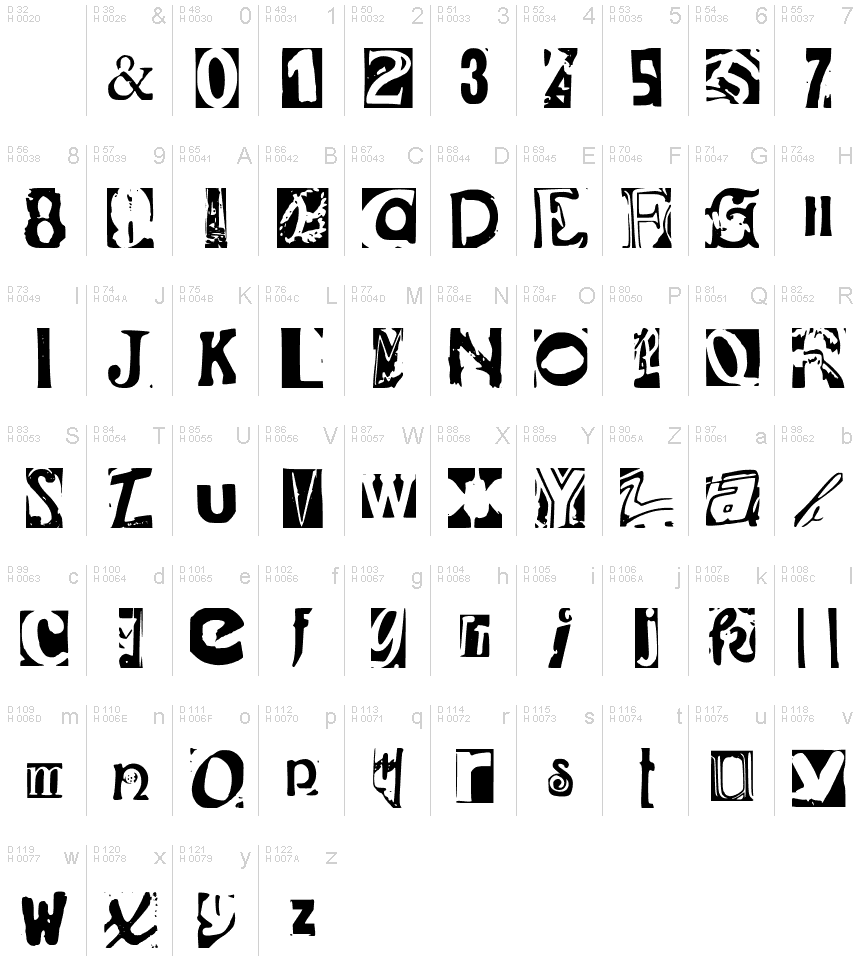
Found Type font is a distorted typeface designed by Mariah Aytch.
Hello, I made this font for an assignment. It resembles the effect of a ransom letter! Have fun with it and please donate to the author if using for commercial reasons, such as an ad, or business purposes.